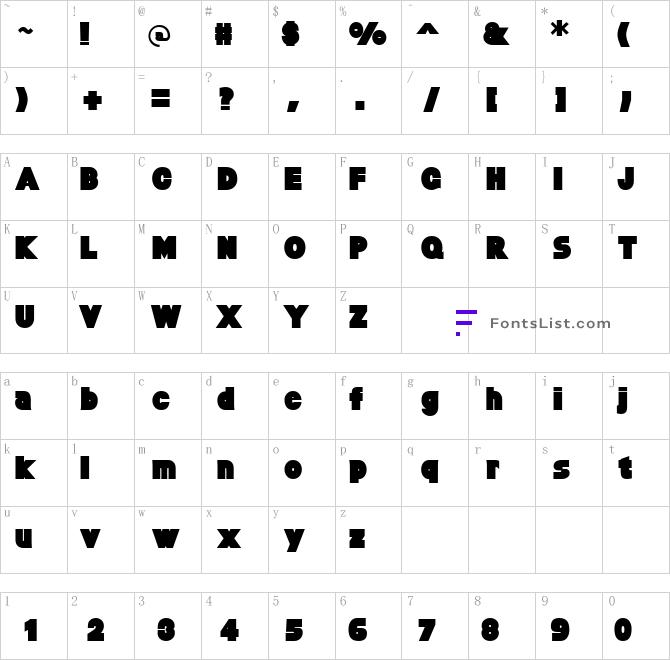
- Font Name:Baltar
Baltar.ttf is a very beautiful artistic font, Baltar.ttf is widely used in the design and printing of various books and pictures,Baltar.ttf has a strong visual impact,Baltar.ttf is a commonly used font in newspapers, magazines and books, and is used in posters, e-commerce Poster design, store design, logo design, font design and other fields.Baltar.